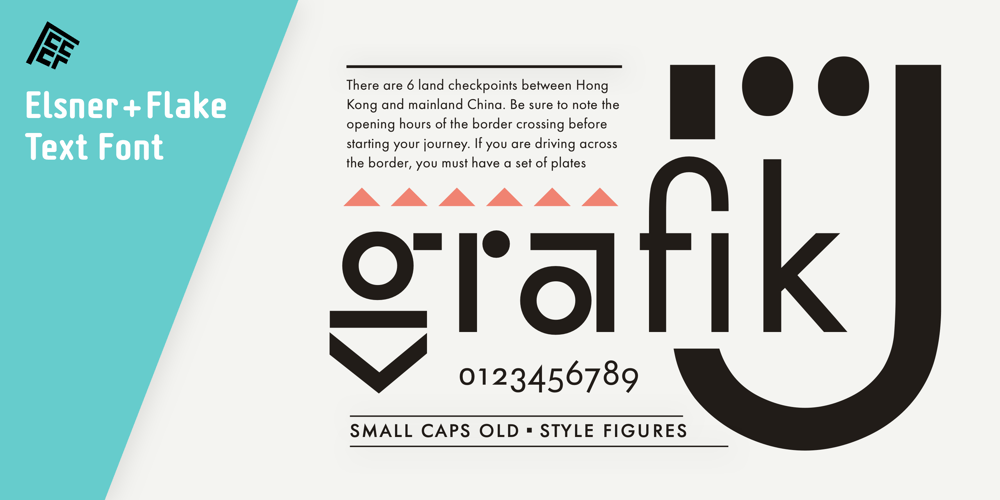
Futura Text EF Pro Font Family was designed by Günther Flake, Paul Renner and published by Elsner+Flake. Futura Text EF Pro contains 1 styles and family package options. The design of Futura seems to be timeless. This typeface family which had been developed in 1926 by Paul Renner for the Bauer Type Foundry in the style of constructivism and as part of the Bauhaus movement, experienced, however, in the course of the past 90 years, repeated time-appropriate revivals which guaranteed its on-going popularity. The version of the Futura EF Pro contains the original character constructions which Dennis Megaw described as the “first designs of Futura” in 1938 in “20th century sans serif types, Typography no. 7” (See: Dr. Christopher Burke: Paul Renner, Princeton Architectural Press, New York 1998). What makes it exceptional is the extension into three weights: “Text”, “Headline” and “Index” which came about as part of a degree dissertation at the Hochschule für Bildende Künste (HFBK) in Hamburg. In this context, the accompanying documentation “Die Kritik der reinen Futura” (“The Critique of the Pure Futura”) by Katharina Strauer was published by the Materialverlag, Hamburg, in 2003. Some copies are still available at Elsner+Flake.